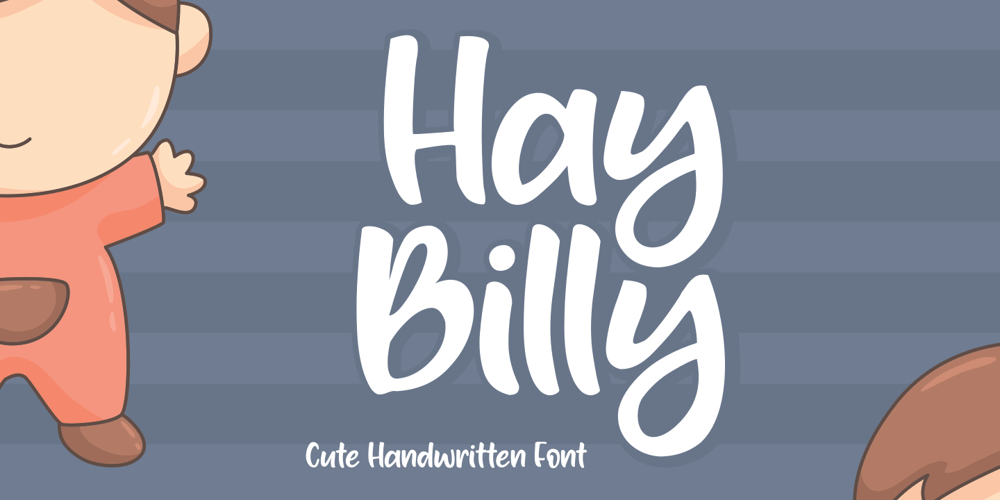
Hay Billy Font Family was designed by Zeenesia Studio and published by Zeenesia Studio. Hay Billy contains 1 styles and family package options. Hay Billy is cute handwritten font. It is bouncy, charming and perfect for many design projects or crafting ideas, Hay Billy perfect for large design project like Tshirt, Advertising, bags, quotes, food , poster, fashion, custom sticker, magazine, and many others. It completed with numbers and punctuation. Multilingual support, and came with PUA encoded.